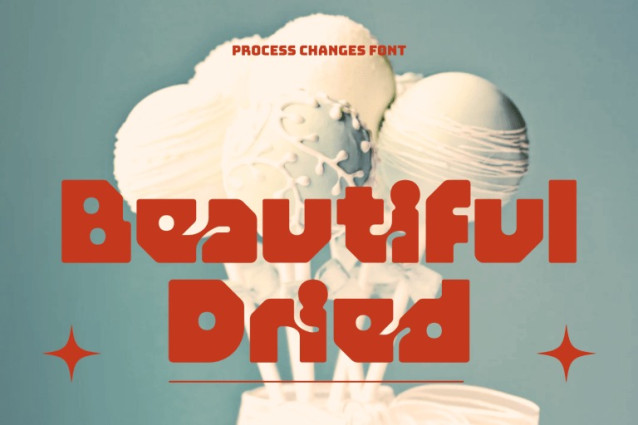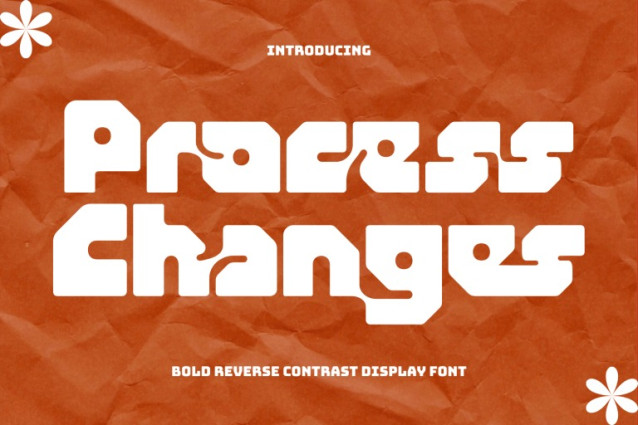
Process Changes – Funky Font is a bold geometric modular sans-serif display typeface inspired by retro-futuristic design and chunky 70s typography. Built from strong geometric shapes with softened corners and playful inner curves, this font delivers a confident and eye-catching visual impact. Its heavy block structure and balanced proportions make Process Changes perfect for standout headlines, creative branding, streetwear logos, packaging design, posters, and modern retro projects. The clean sans-serif foundation combined with unique curved cut details gives the typeface a distinctive personality while maintaining strong readability at large sizes.
Uppercase & Lowercase Letters
Around 100 Special Ligatures & Alternates
Accented Characters for multilingual support
🔤About 100 ligatures combined with Stylistic Alternates Font: